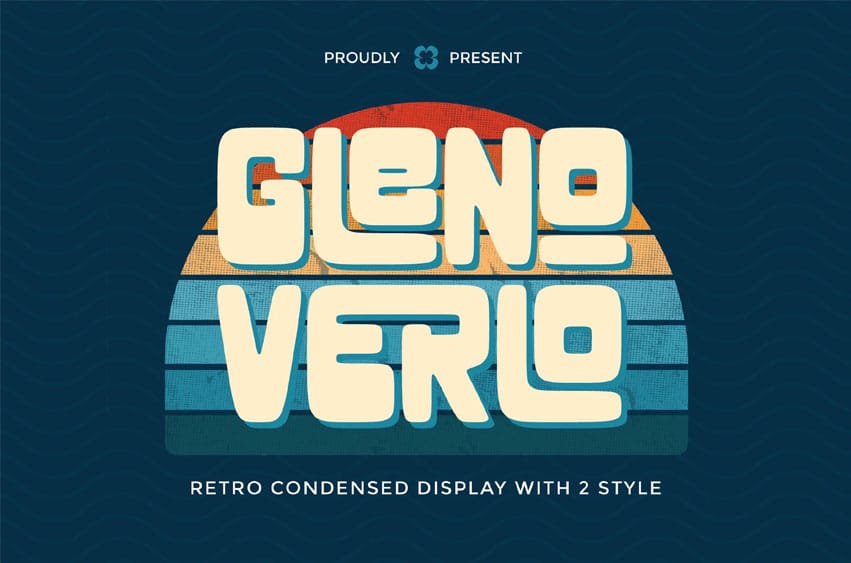
Glenoverlo Font is a bold, retro, Condensed display font that captures the spirit of vintage pop culture. With its chunky letterforms, playful curves, and nostalgic flair, GLENOVERLO is designed to bring your designs back to the golden era of retro posters, signage, and classic branding. Perfect for headlines, logos, and statement pieces, this typeface combines quirky character with strong readability – making your message stand out with style and warmth.